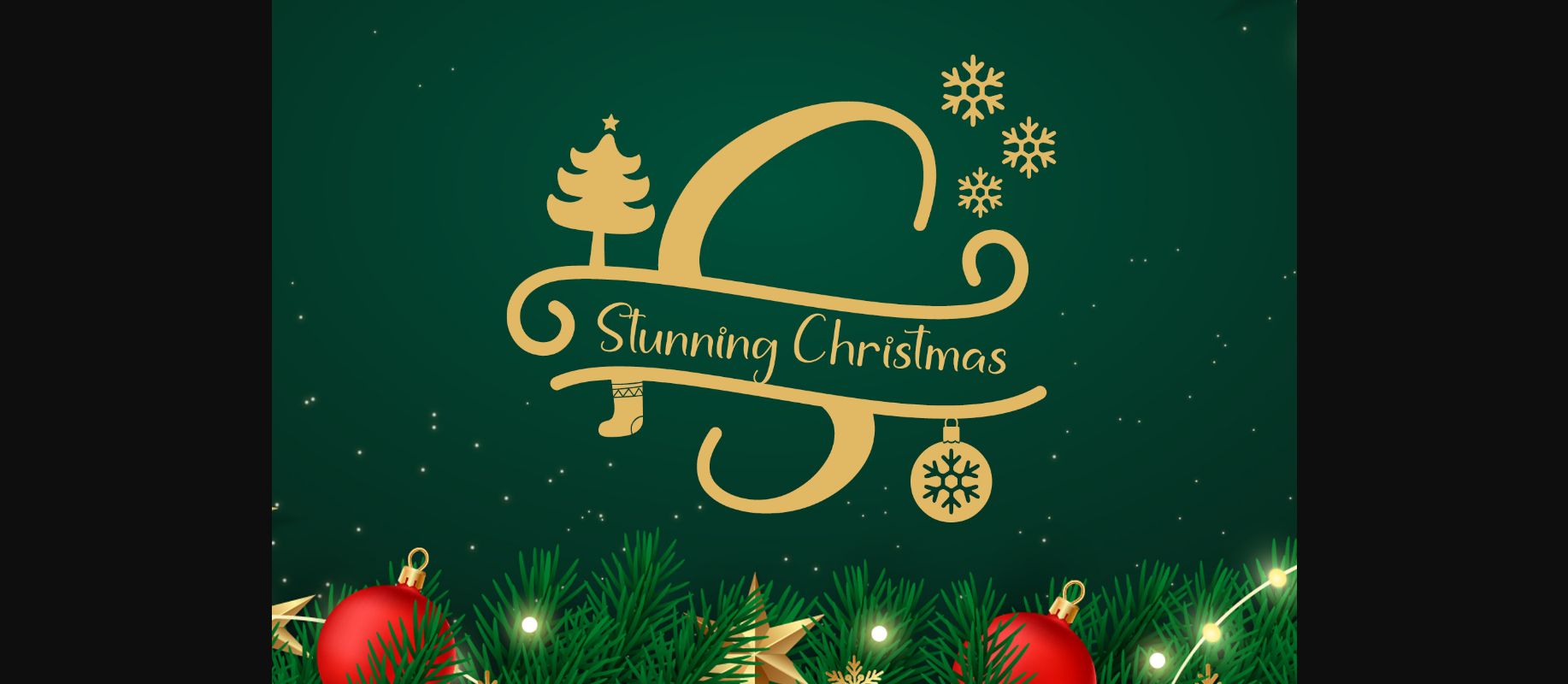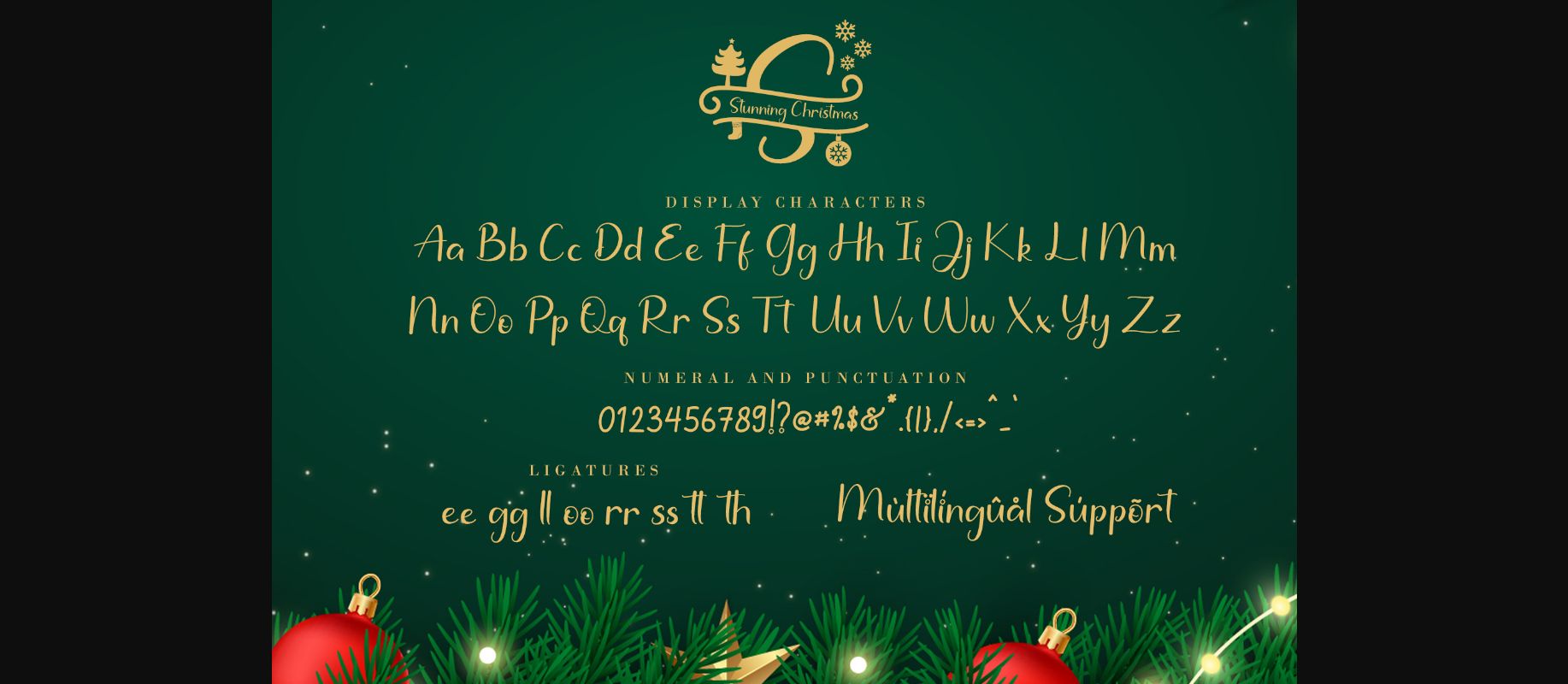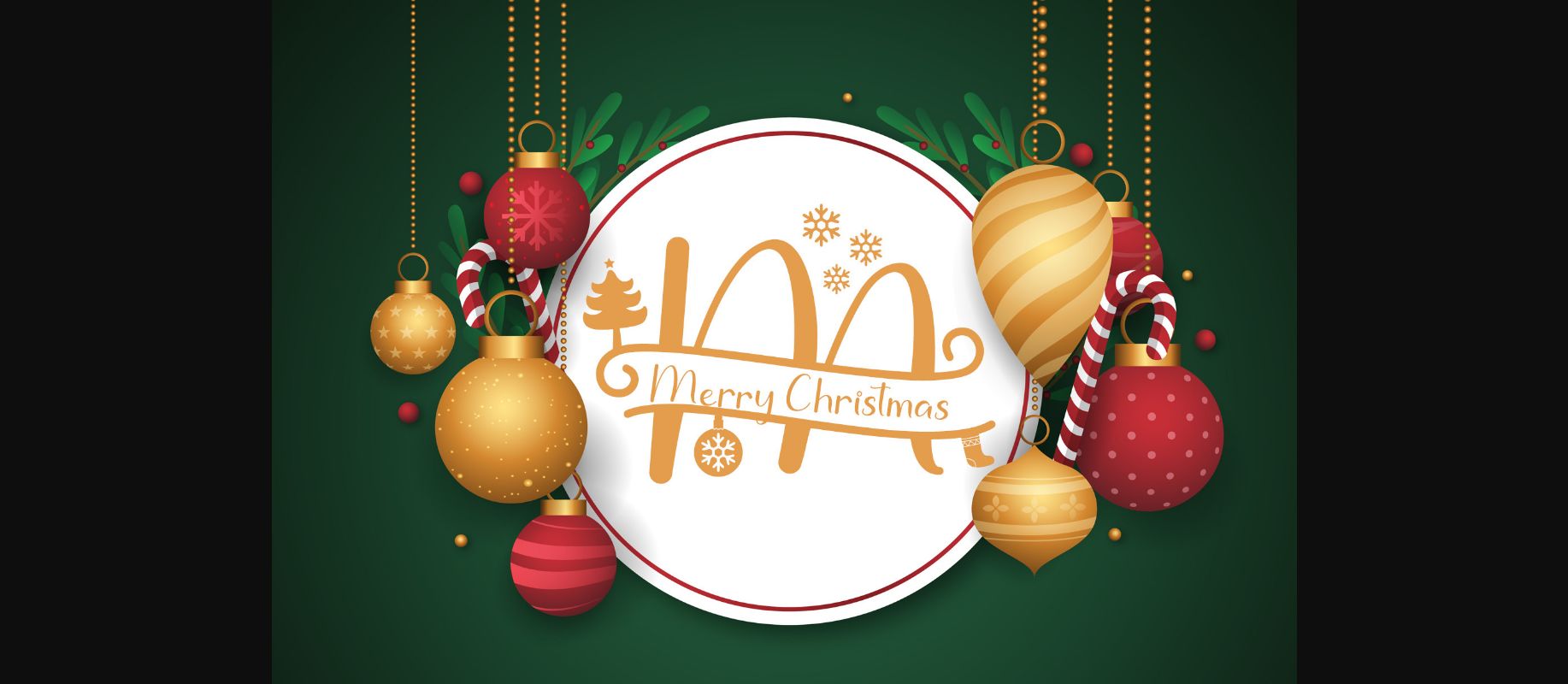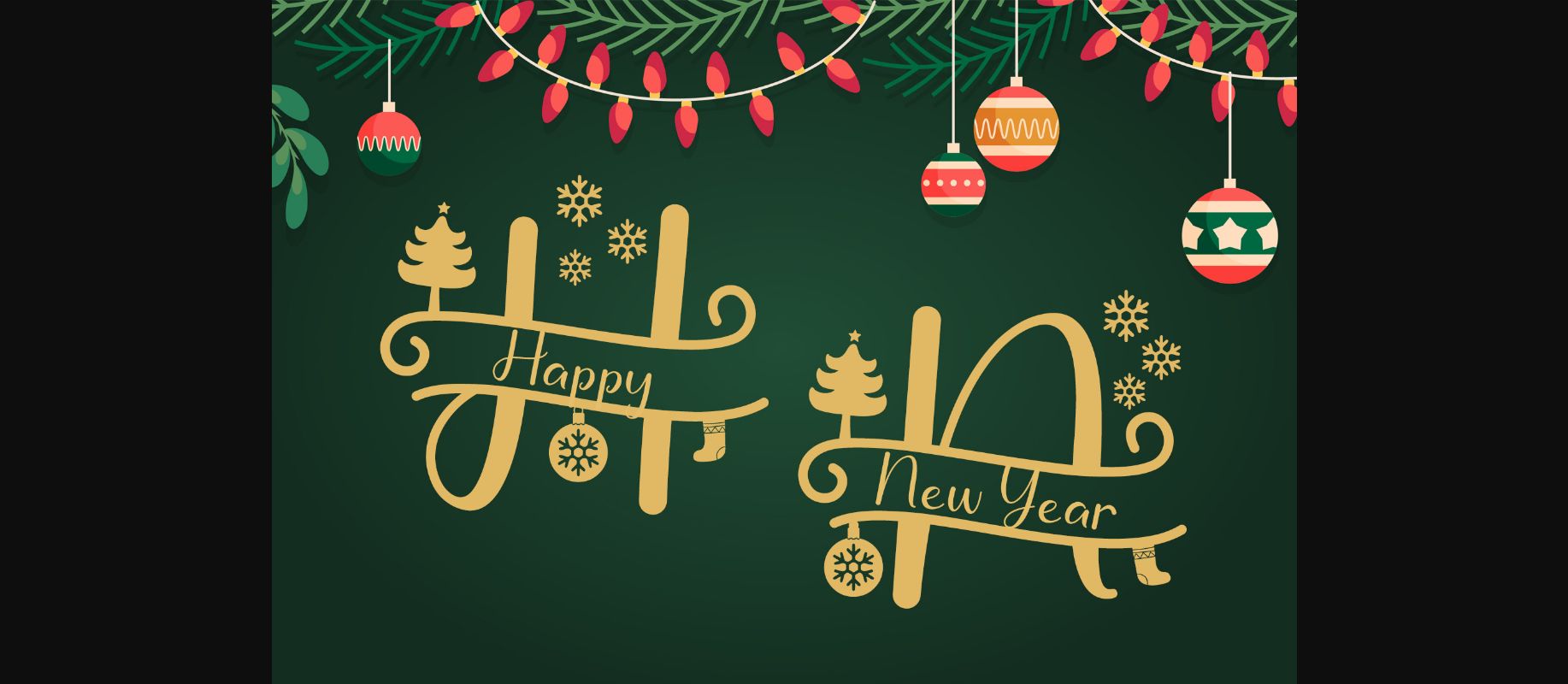
About Stunning Christmas Monogram Font
Stunning Christmas Monogram is a stunning and comprehensive duo font (script and decorative), ideal for giving your projects a branded but friendly feel. The two included styles can be combined together perfectly but are also beautiful on their own.